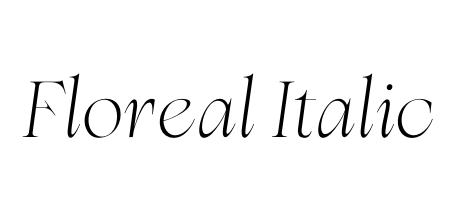
Floreal Italic
By Risca Anitawati
Floreal Italic: A font that whispers secrets in a language of elegant curves and delicate slants. Its italic grace dances across the page, evoking a sense of romanticism and old-world charm. Perfect for invitations, poetry, or anything demanding a touch of refined beauty, its flowing script creates a sense of effortless sophistication.